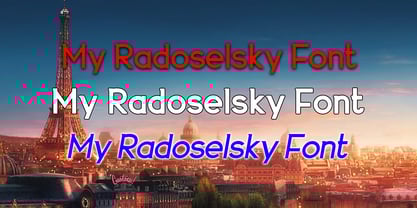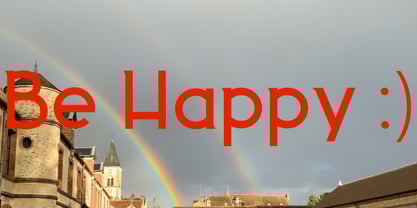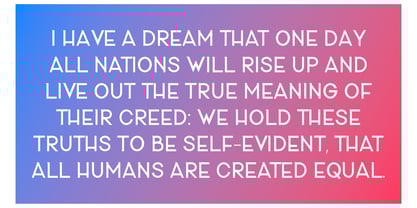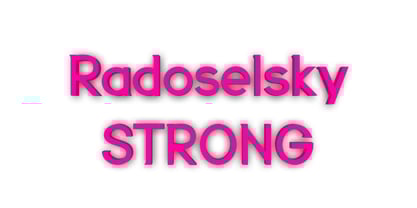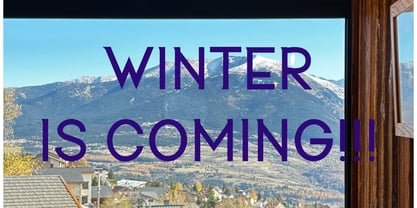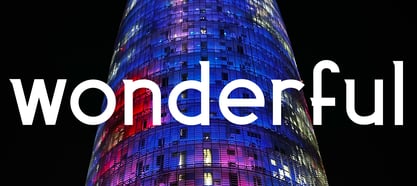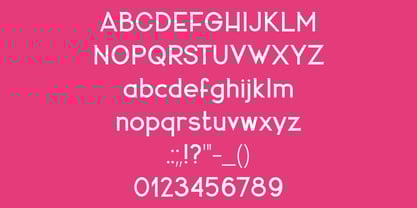
Radoselsky Strong
The Radoselsky Strong Font Family was designed by Eugene Radoselsky and published by Radoselsky. Radoselsky Strong contains 1 styles. More about this family
This is my third font work. This custom-designed font supports English, French, German, and Spanish languages. It includes a total of 218 characters, carefully crafted to cover the essential Latin script and diacritical marks required for these languages. I made it more serious this time, so it can be used in more official designs or even documents.
My font Features:
• Alphabet: All uppercase and lowercase letters (A-Z, a-z).
• Numerals: Standard digits (0-9).
• Punctuation: Comprehensive set of punctuation marks, including periods, commas, colons, semicolons, question marks, exclamation marks, and quotation marks.
• Special Characters: Includes diacritical marks and accented letters such as é, ü, ñ, and ß to support French, German, and Spanish fully.
• Additional Symbols: Covers common mathematical and typographic symbols like @, #, $, %, &, *, +, =, and more.
• Design Style: The font has a unique and consistent design style i developed myself maintaining legibility and aesthetic appeal across all characters.
This font is ideal for multilingual projects, ensuring readability and compatibility with the targeted languages. I hope you can use this creation with your project and would be happy to get some feedback.